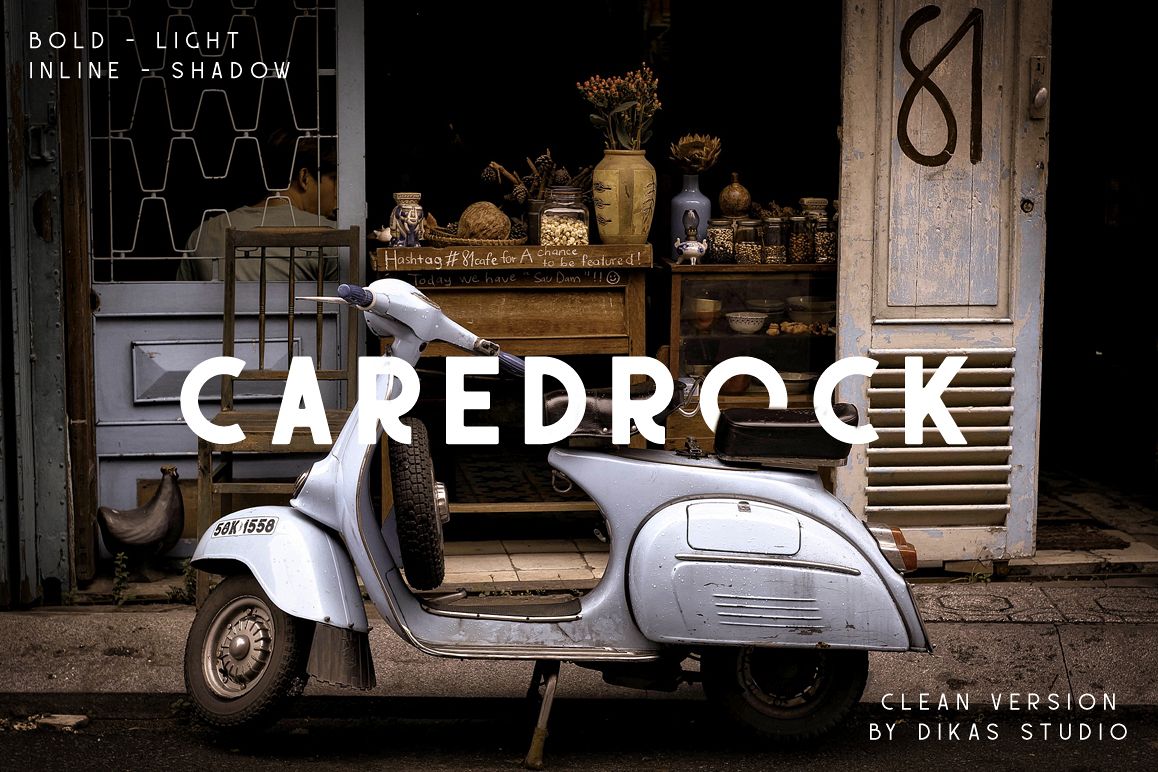
Caredrock
Caredrock Inline Shadow
Caredrock Inline
Caredrock Light Shadow
Caredrock Light
Caredrock Shadow
Caredrock
Caredrock is a sans serif font. Ready for 2 weight bold and light and have a inline and shadow version, it's made Caredrock is very good for vintage and modern design. Suitable and applicable to create vintage
design, branding, logos, product packaging, invitation, qoutes, t-shirt,
label poster etc.